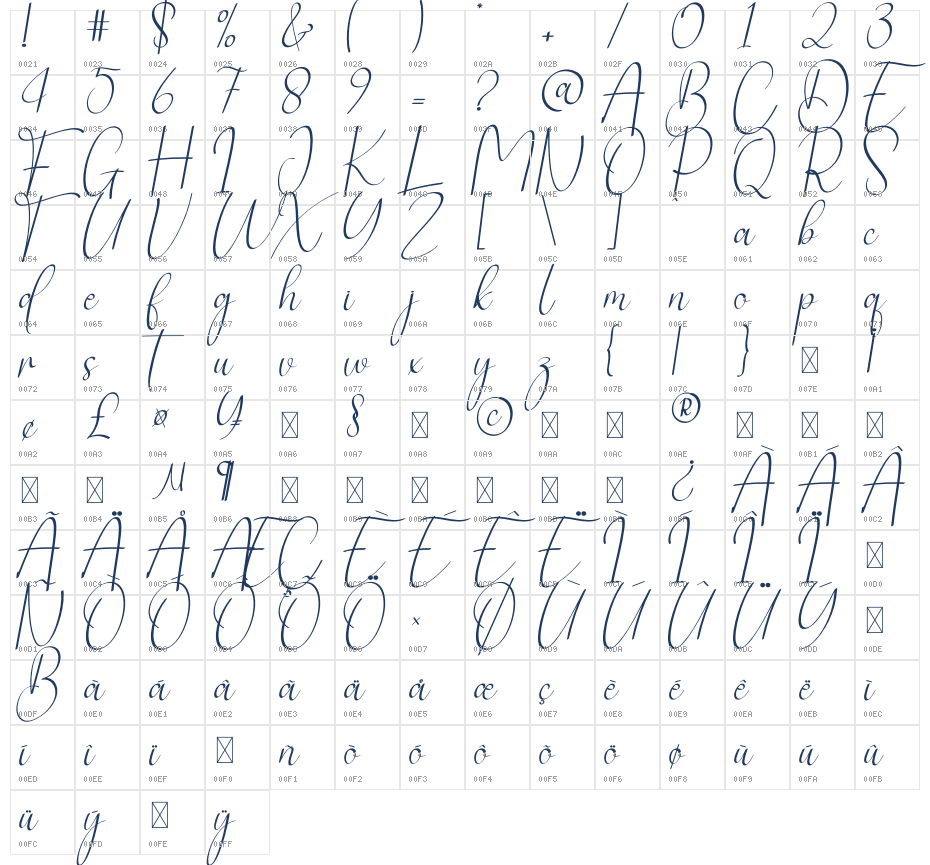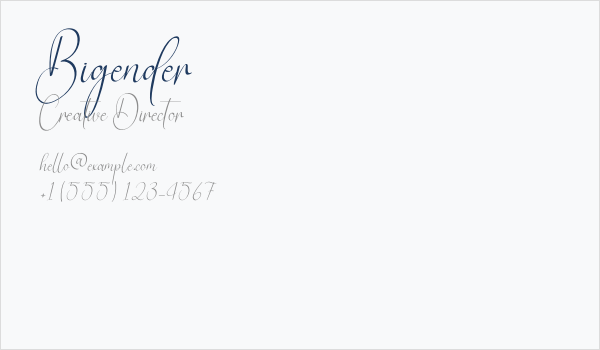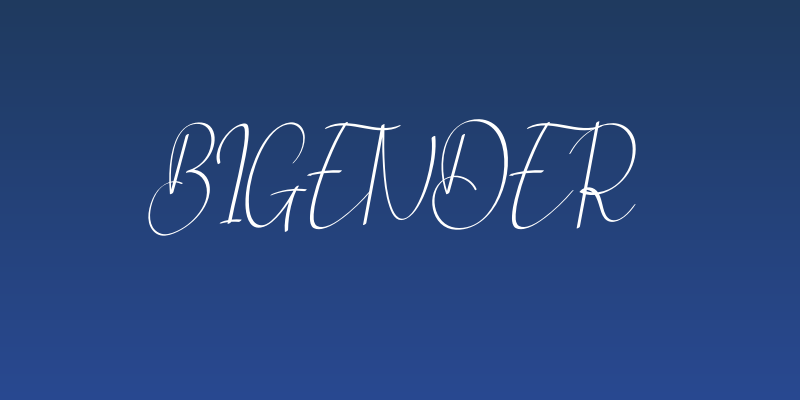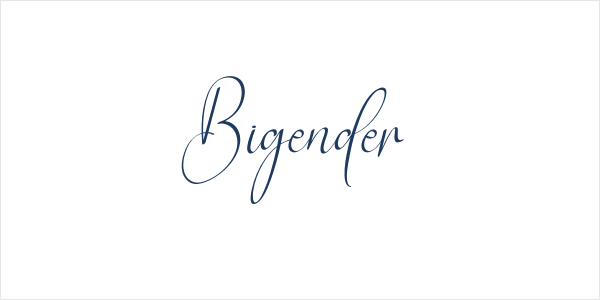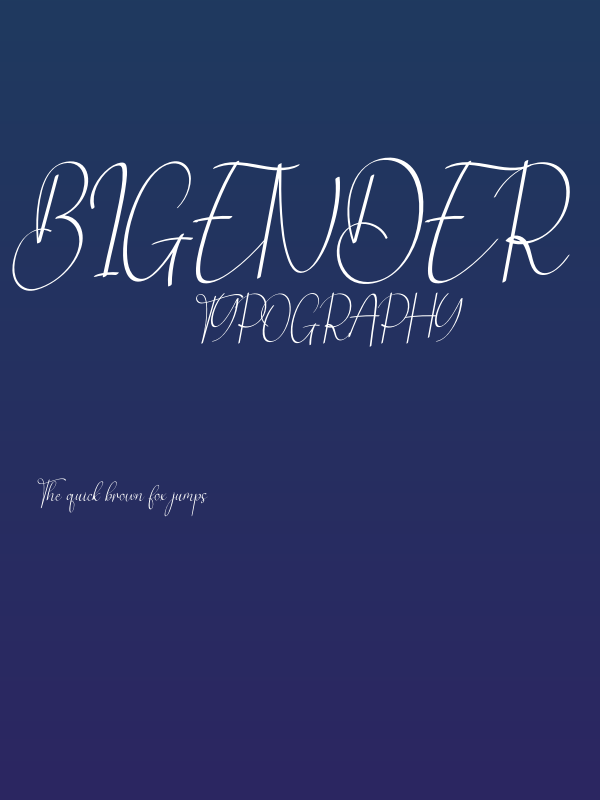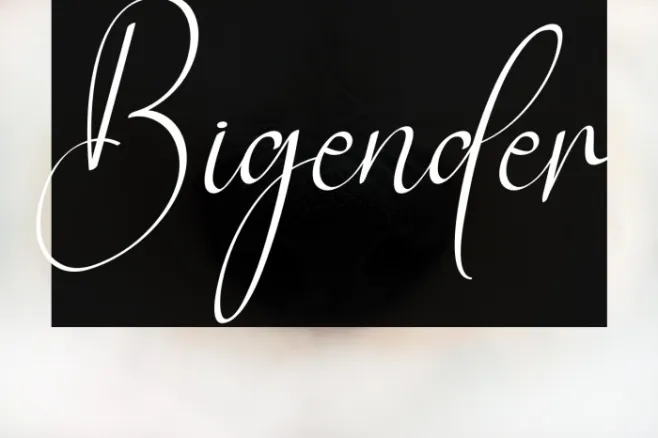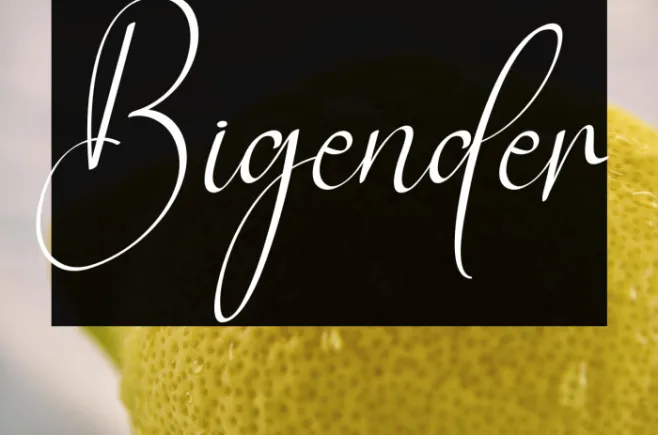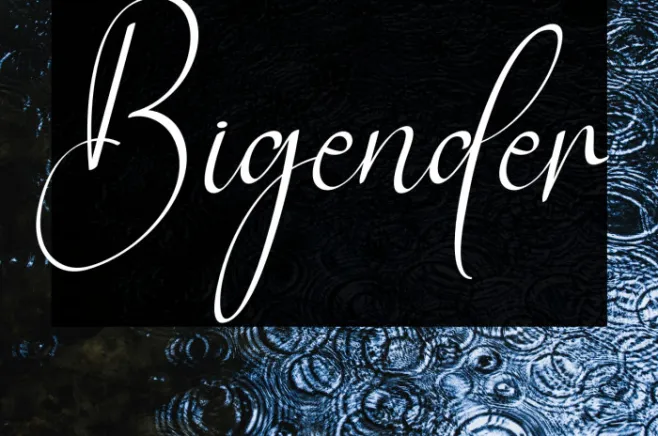
Bigender Font
Bigender Description
A decorative, cursive script font with elegant, flowing lines and high contrast between thick and thin strokes.
| Overall Style | Elegant, Decorative, Calligraphic |
| Use Case | Invitations, logos, branding, fashion, luxury product packaging. |